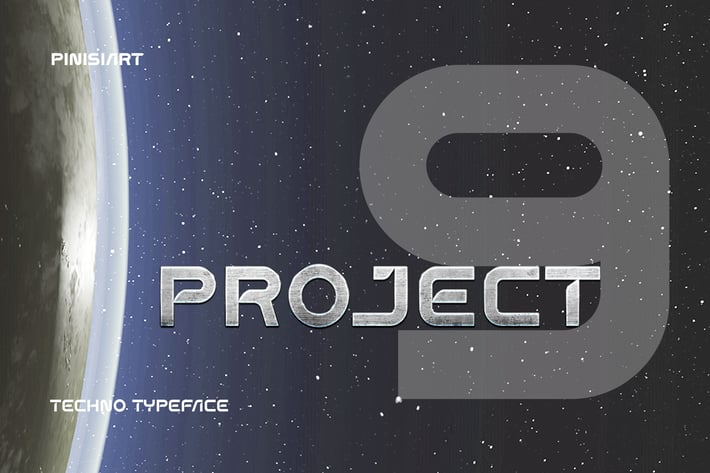
Project 9 – Techno Font
Science, numbers, and future technology is coming. And Project 9 will be a go to font for this kind of projects.
Suit perfect for technology books market, online games, gadget event posters, school supplies font, poster, movie title, youtube covers, youtube thumbnails, social media page covers, and so on...